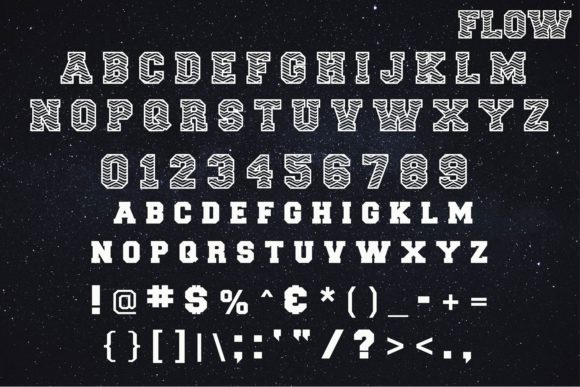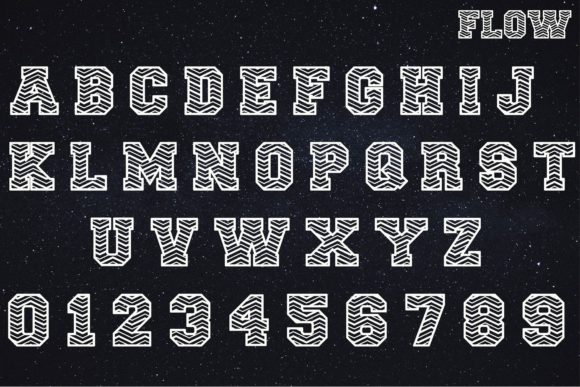
Introducing Flow Font: Elevate Your Designs with a Unique Display Font
Are you tired of using the same old fonts in your designs? Look no further! Flow Font is here to revolutionize the way you approach typography. This stunning display font is designed to make a statement, adding a touch of elegance and sophistication to a wide range of design projects.
What is Flow Font?
Flow Font is a unique display font that boasts an amazing look, perfect for taking your designs to the highest level. Its versatility knows no bounds, making it an ideal choice for various applications, including:
• Branding: Create a lasting impression with Flow Font’s distinctive style, perfect for logos, business cards, and letterheads.
• Headings: Add a touch of drama and flair to your headings, making them stand out from the crowd.
• Wedding Designs: Make your wedding invitations, programs, and decorations truly unforgettable with Flow Font’s elegant charm.
• Invitations: Whether it’s a birthday party, baby shower, or graduation, Flow Font is the perfect choice for creating eye-catching invitations.
• Signatures: Add a personal touch to your email signatures, making them more professional and stylish.
• Logos: Create a unique and memorable logo for your business or brand with Flow Font’s distinctive style.
• Labels: Make your product labels, packaging, or promotional materials stand out with Flow Font’s bold and eye-catching design.
Why Choose Flow Font?
So, what sets Flow Font apart from other fonts? Here are just a few reasons why designers and crafters love Flow Font:
• Unique Style: Flow Font’s distinctive design makes it a one-of-a-kind addition to any design project.
• Versatility: Use Flow Font across various design applications, from branding and advertising to wedding designs and crafting.
• Elegance: Add a touch of sophistication and elegance to your designs, making them truly unforgettable.
Tips for Using Flow Font
To get the most out of Flow Font, here are some expert tips:
• Pair it with Neutrals: Balance Flow Font’s bold style with neutral colors and clean designs to create a striking contrast.
• Experiment with Sizes: Play with different font sizes to create visual interest and hierarchy in your designs.
• Add Texture: Combine Flow Font with textures, patterns, or images to add depth and dimension to your designs.
Get Creative with Flow Font
Whether you’re a professional designer or a crafty DIY enthusiast, Flow Font is the perfect addition to your design toolkit. With its unique style, versatility, and elegance, Flow Font is sure to elevate your designs to new heights.